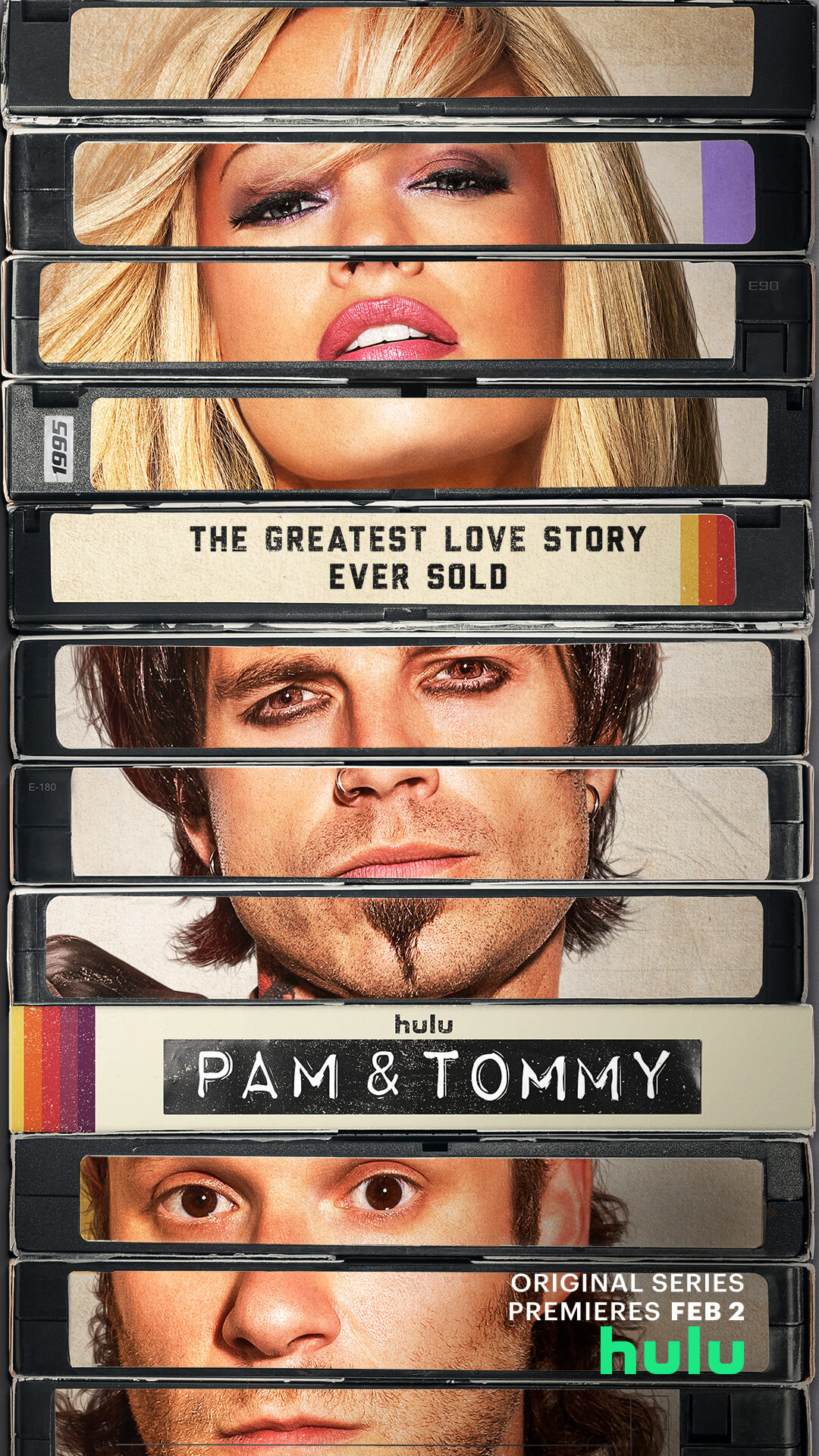
Pam & Tommy Font
A manually kerned Impact Label is used for the series title. Regular and reversed versions of Impact Label are available. You can download them for free in the Fonts Used Section.